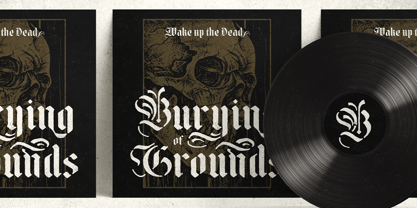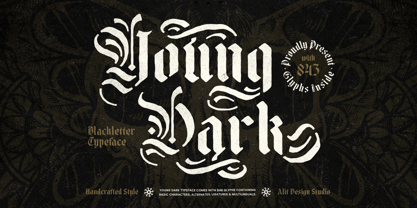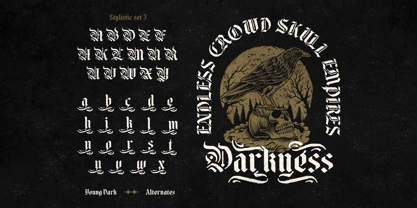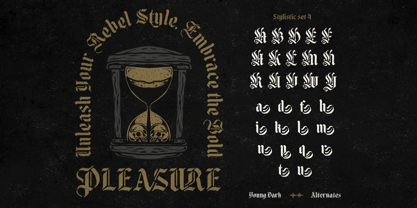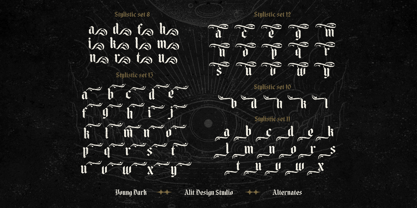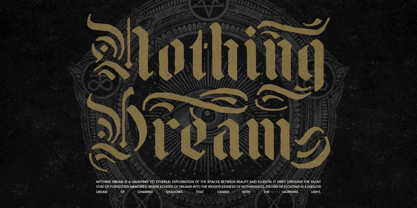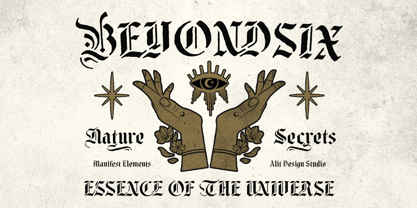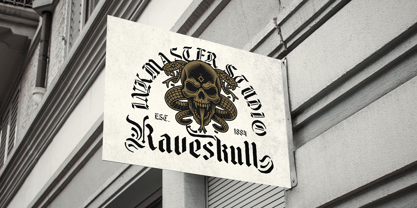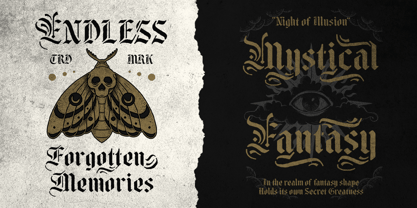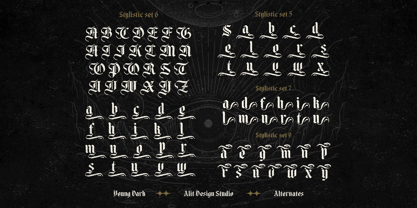
Young Dark
Young Dark Typeface – A Bold Blackletter Stencil Font
Unleash the power of gothic artistry with Young Dark Typeface, a masterfully designed blackletter stencil font that blends historical elegance with a modern, rebellious edge. Designed for those who seek to make a statement, this typeface delivers a bold, high-impact visual appeal that suits a variety of creative projects—from branding to apparel, posters, music covers, and more.
Why Choose Young Dark Typeface?
🔥 A Fusion of Classic and Modern Typography
Young Dark Typeface is a unique blend of blackletter and stencil styles, featuring the intricate details of medieval calligraphy while incorporating a rugged, cut-out stencil effect. This gives it an aggressive yet refined appearance, making it perfect for projects that demand a strong, gothic, and rebellious aesthetic.
Font Features
✅ 846 Characters – A vast collection of glyphs, including uppercase, lowercase, numerals, punctuation, and symbols.
✅ Swashes & Alternates – Add a touch of artistry with extended strokes and decorative flourishes.
✅Stylish Ligatures – Enhance your typography with fluid and natural letter combinations.
✅Multilingual Support – Covers a wide range of languages, including Western European, Central European, and Southeast European scripts.
Perfect For:
✔ Logo & Branding – Create a distinctive identity with a font that commands attention.
✔ Posters & Album Covers – Ideal for metal, gothic, rock, and underground music genres.
✔ Tattoo & Apparel Design – Add a dark, handcrafted aesthetic to your fashion projects.
✔ Editorial & Book Covers – Perfect for fantasy, horror, and historical-themed publications.
✔ Social Media & Marketing – Make bold statements with powerful, dramatic typography.
Bring Darkness to Life with Young Dark Typeface
Whether you’re designing for vintage gothic elegance or modern urban rebellion, Young Dark Typeface delivers the versatility and uniqueness you need. Embrace the darkness, break the rules, and create designs that leave a lasting impact.